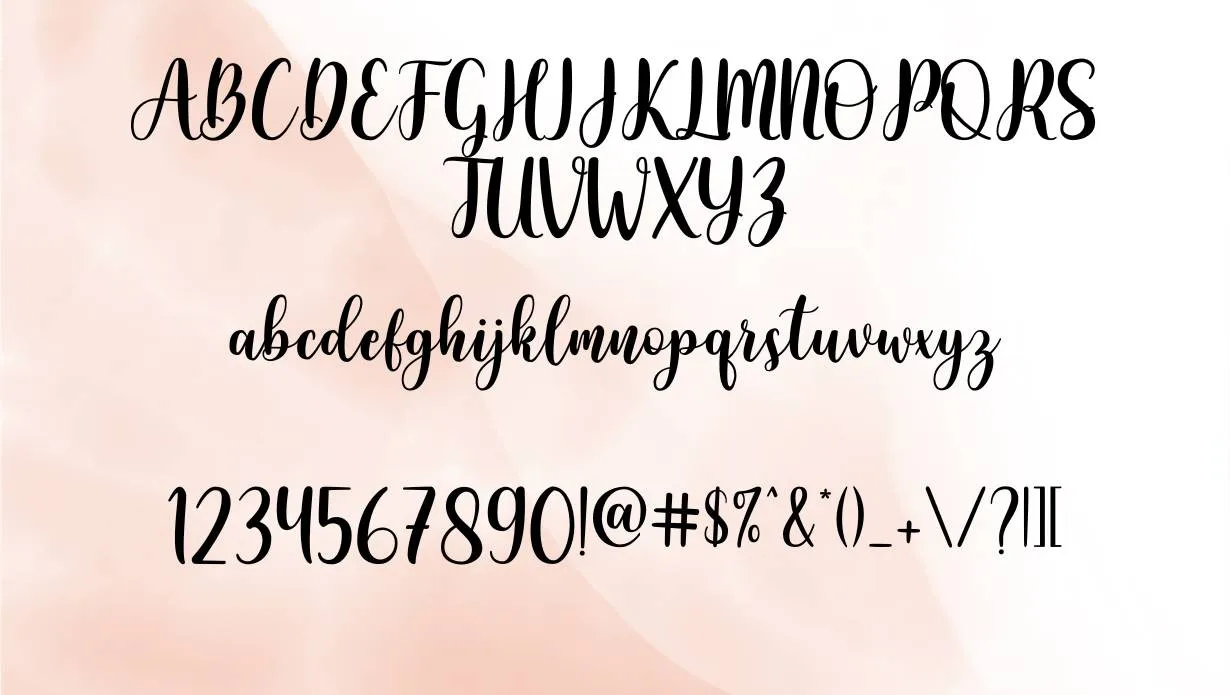
Martina Calligraphy Font is an elegant script typeface that embodies grace and sophistication. This typeface is a popular choice for upscale and romantic design projects, such as wedding invitations and luxury branding.
With extensive support for various foreign languages, this typeface family excels, especially when combined with a decorative font like Lucida Calligraphy Font.
With its fluid and delicate letterforms, Martina adds a touch of beauty and class to your design, making it perfect for creating an atmosphere of grace and romance.